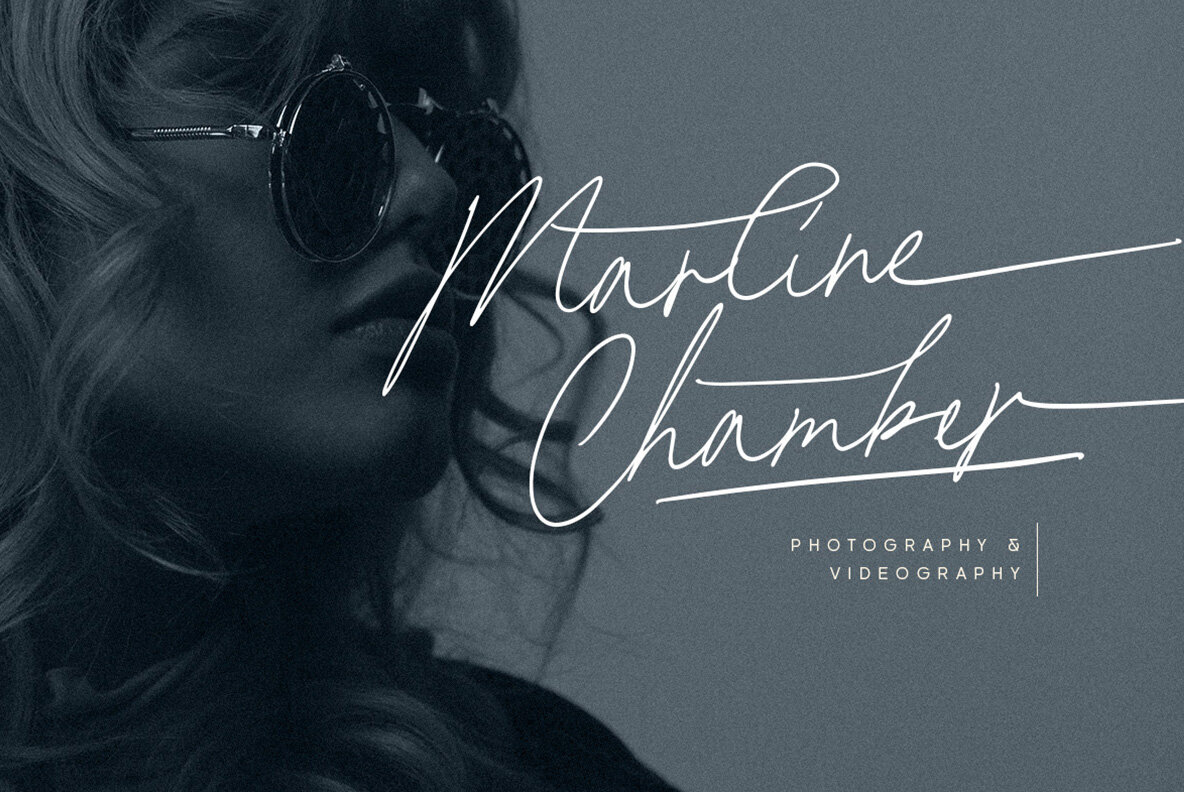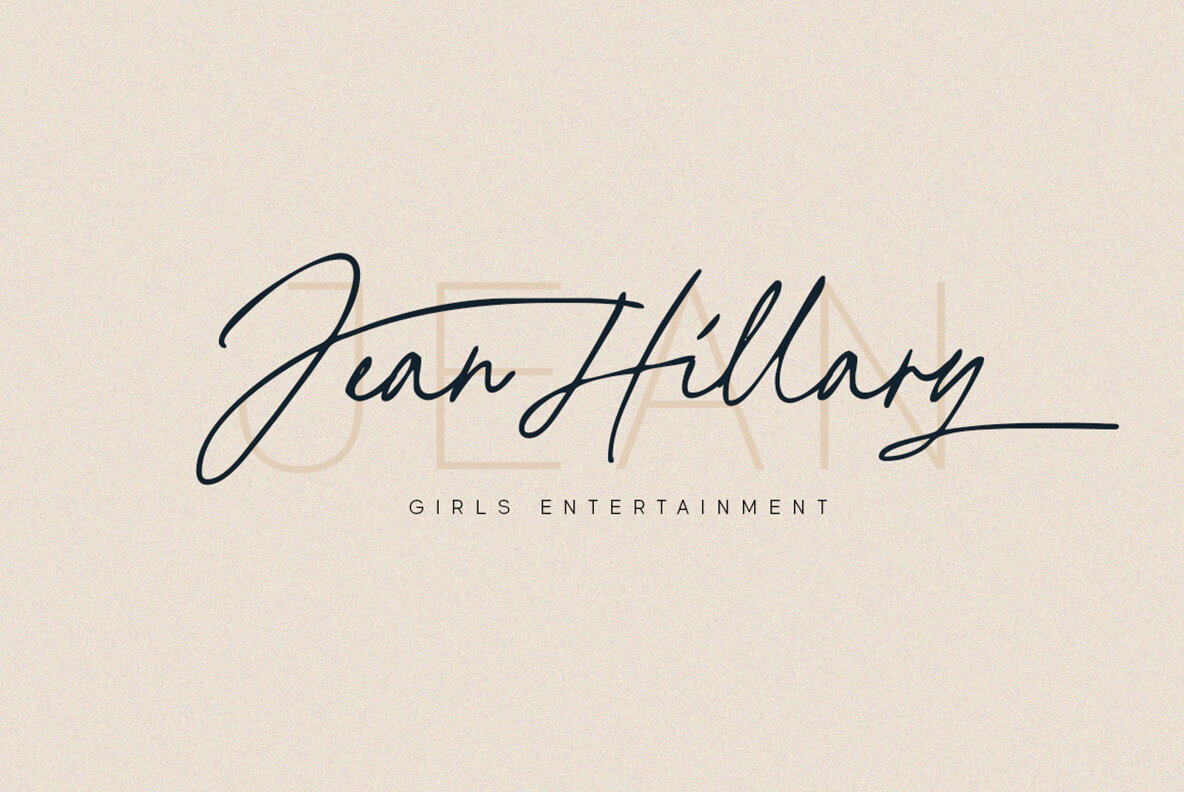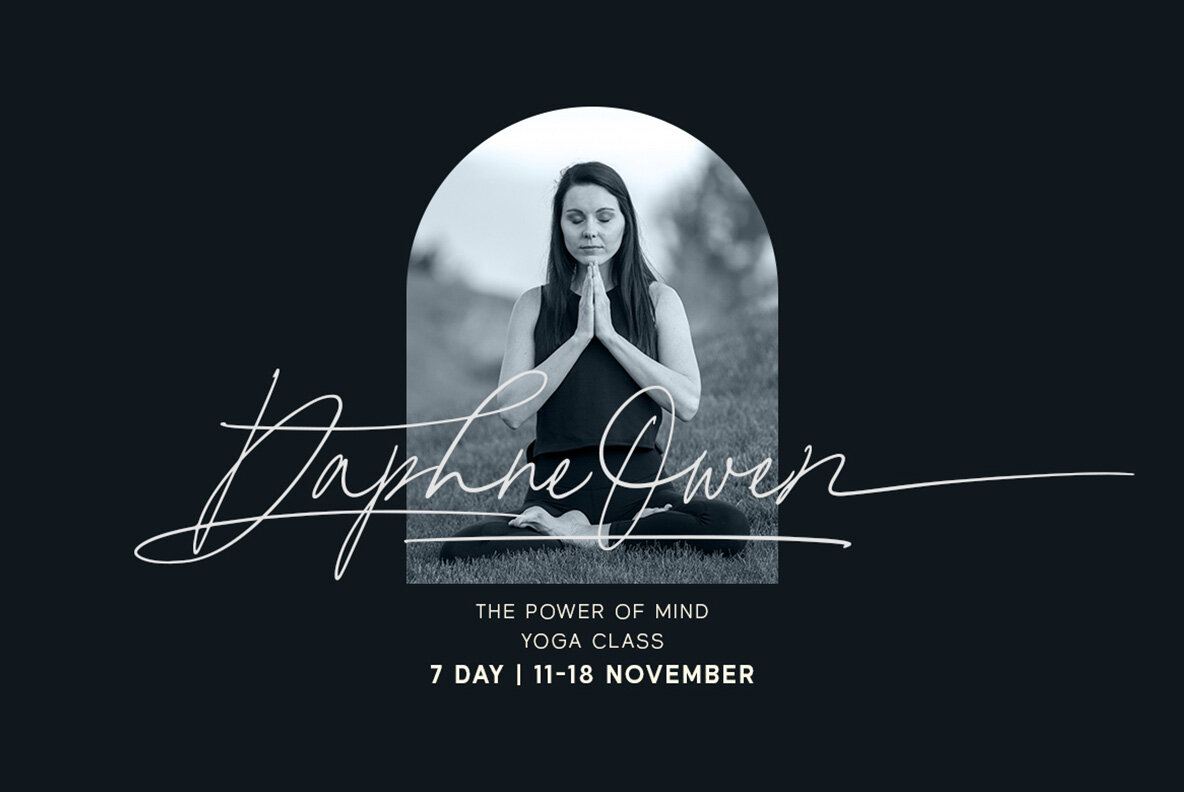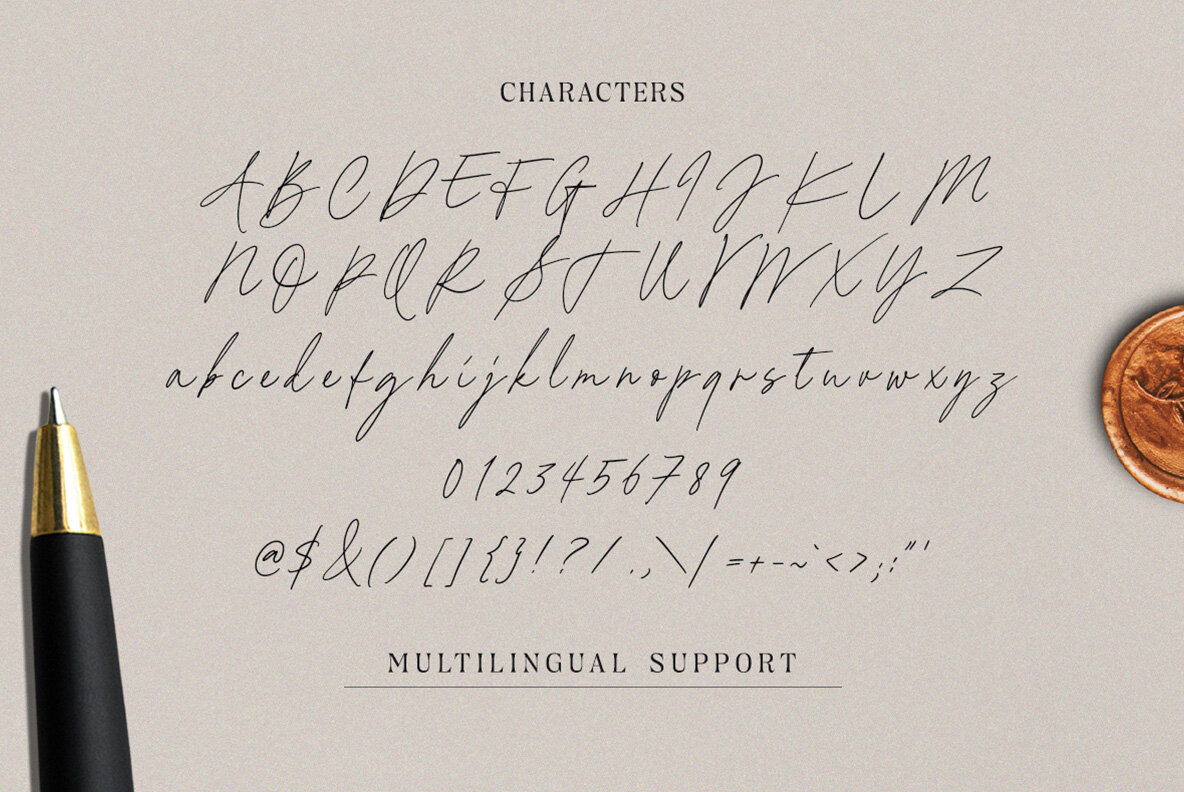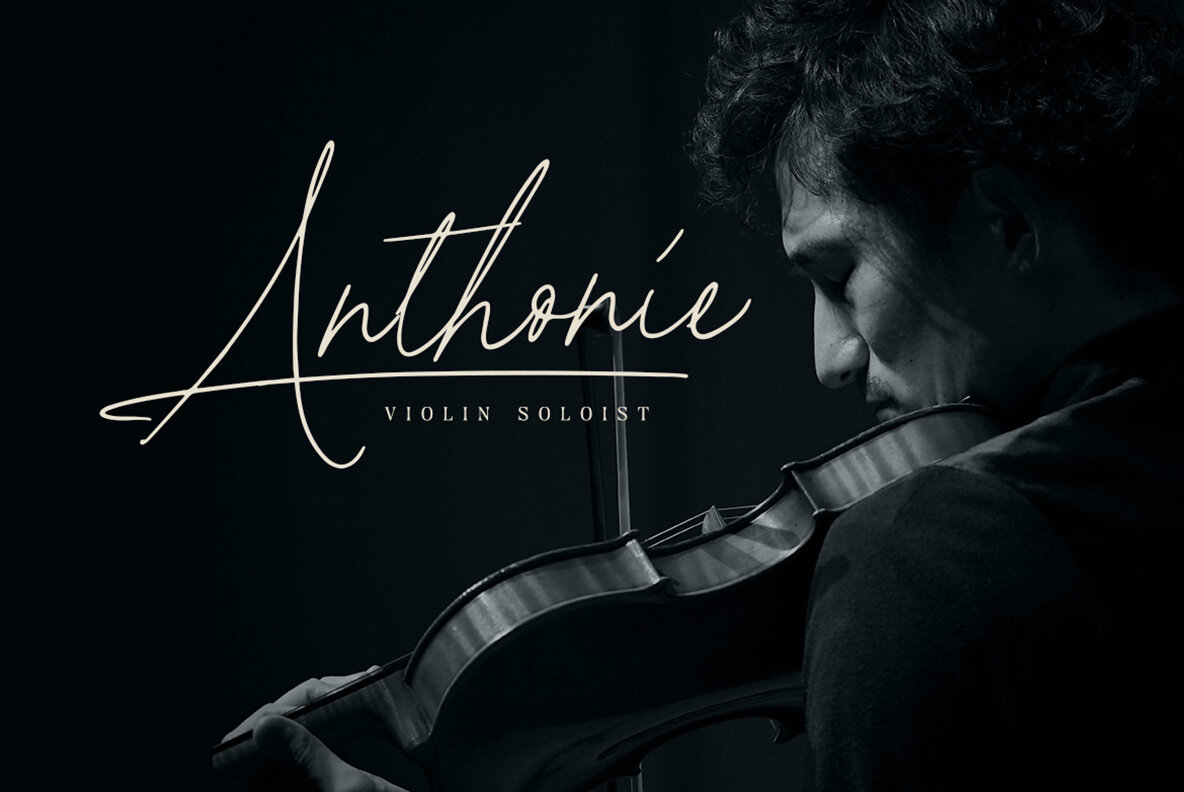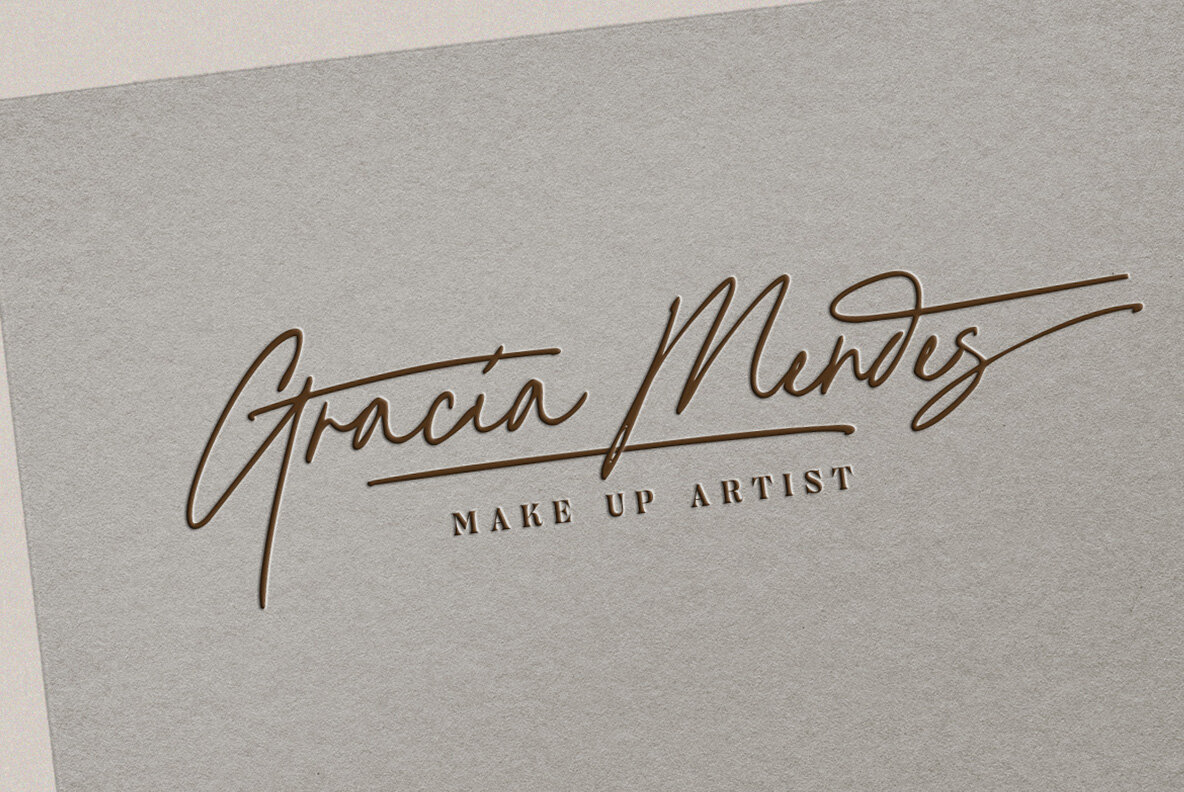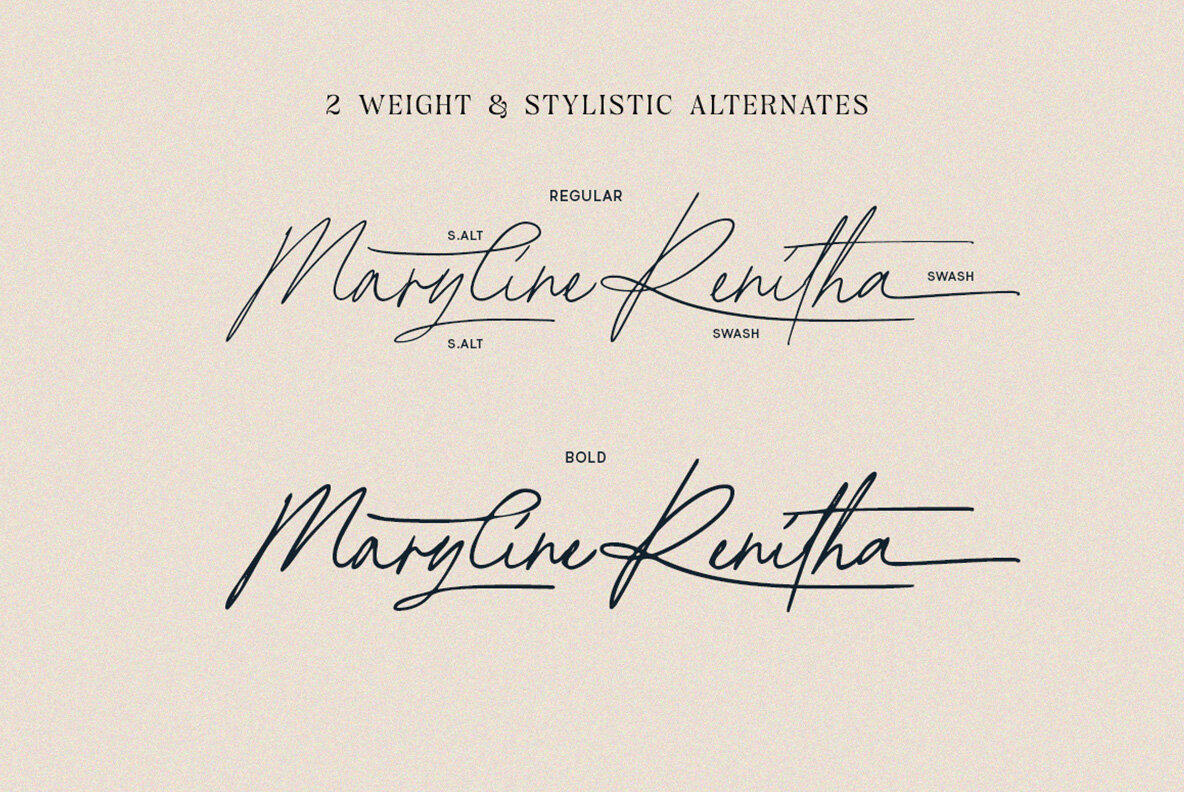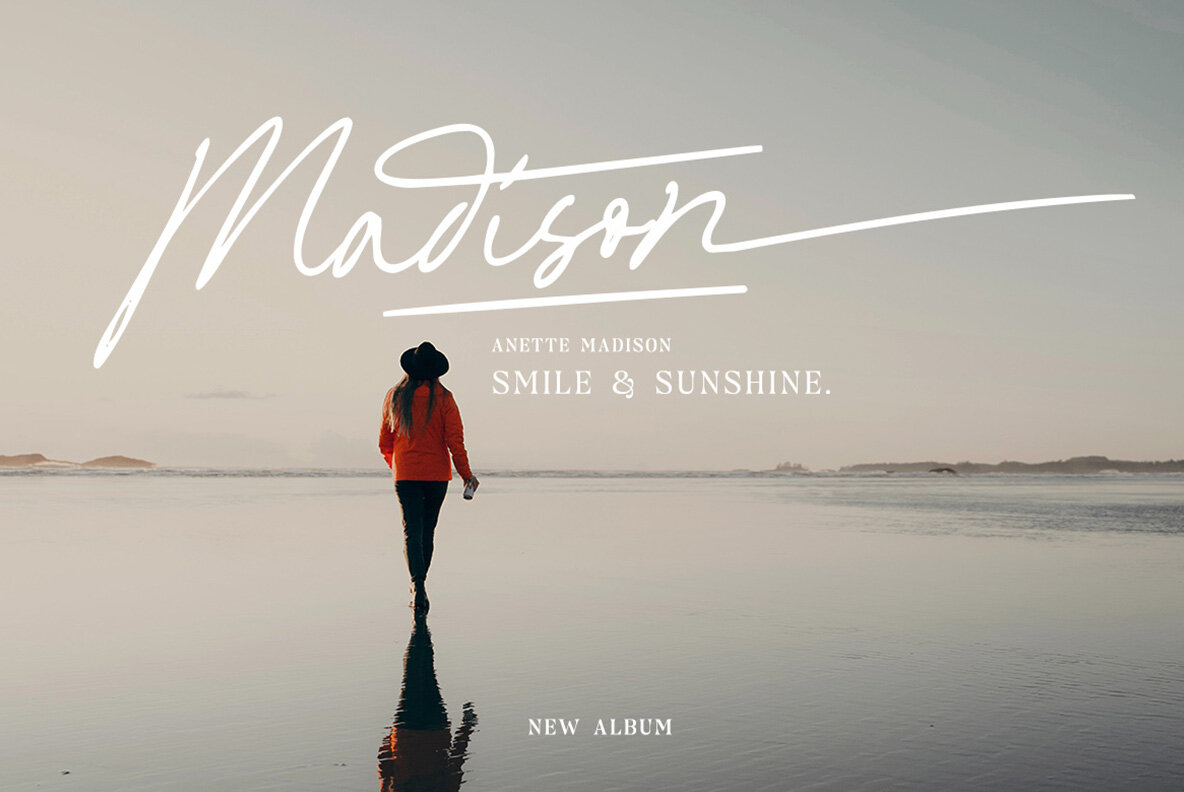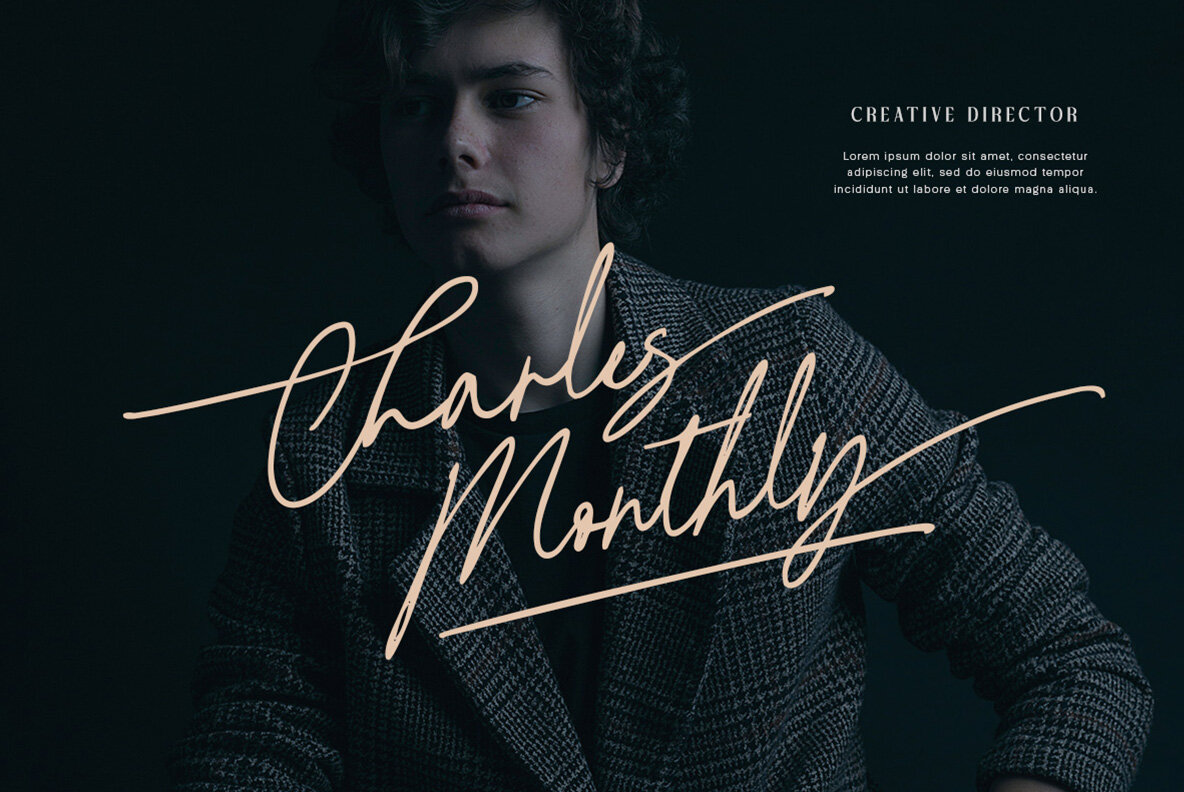
Andreas Signature Font
Andre Signature is a beautiful signature script based on manual hand writing. The stylistic alternate, ligatures and the tick and thin stroke make this font looks a real hand writing instead of typing a font. This type of font perfectly made to be applied especially in logo, and the other various formal forms such as invitations, labels, logos, magazines, books, greeting / wedding cards, packaging, fashion, make up, stationery, novels, labels or any type of advertising purpose.
- Numbers and Punctuation
- Alternates and Ligatures